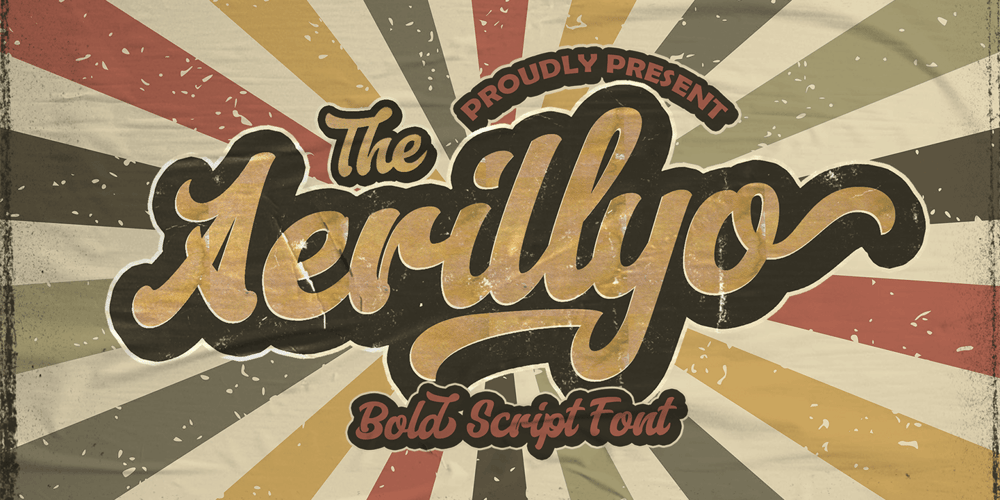
Aerillyo Font Family was designed by Virgiawan Listanto and published by Stringlabs Creative Studio. Aerillyo contains 1 styles and family package options. The Aerillyo is a strong and bold script font. It’s curved and rounded in every single touch, and has an unique vintage and retro styles that’s perfect for branding. The Aerillyo font is suitable for all your retro, vintage, and 80s style projects.